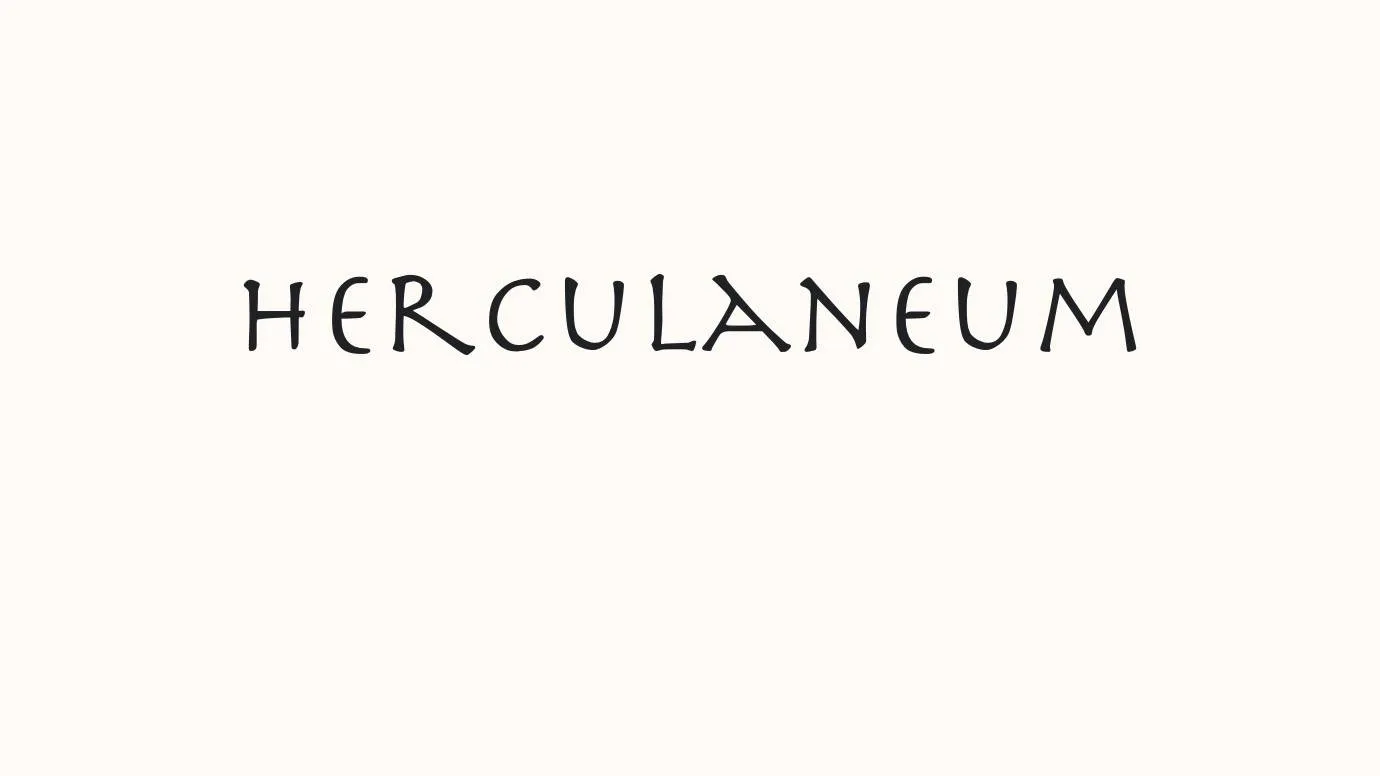
Herculanum Font Family is an impressive sans serif font, that was crafted by the renowned Swiss font designer, Mr. Adrian Frutiger. Named after the ancient Roman city of Herculaneum, this town was famously devastated by  Mt. Vesuvius in 79 AD.
This typeface is great for narrow needs, however, it can also be expansive when required. It produces an expressive line float like the Geomanist font. It can be also found within Google fonts.
Herculanum Font Family
NameHerculanum Font
DesignerAdrian Frutiger
StyleSans serif
Date Released1990